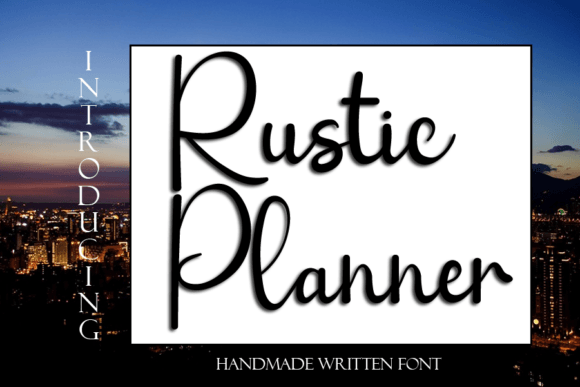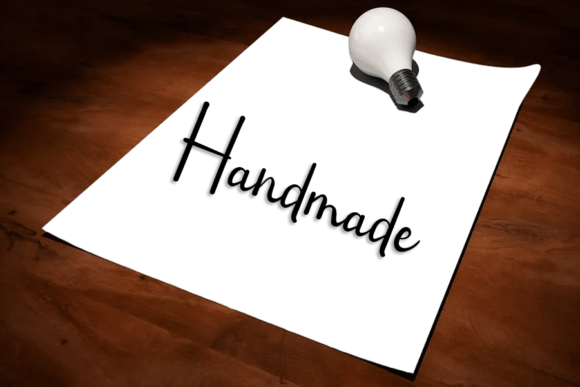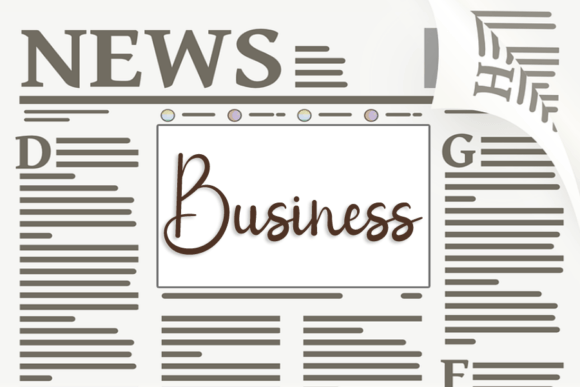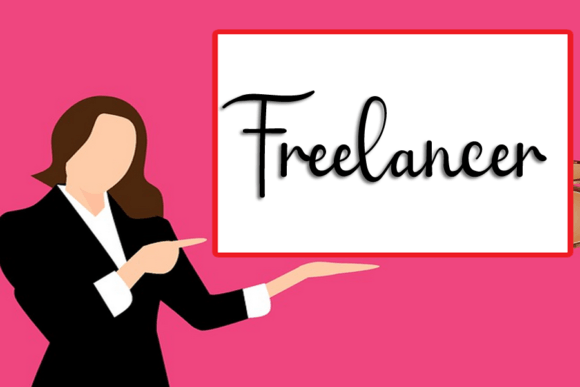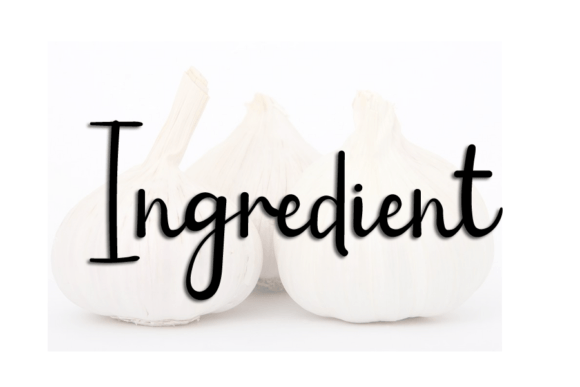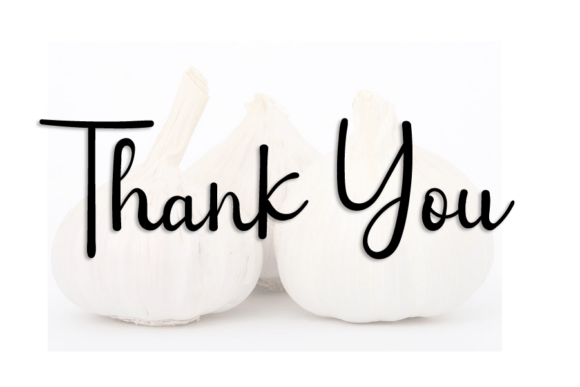
Rustic Planner Font
About Rustic Planner Font
“Rustic Planner” is a beautiful handwritten font designed to make your work stand out with its elegant and curvy lines. This font is an excellent choice for a wide range of creative projects, adding a romantic and handmade touch to your designs. Whether it’s product packaging, branding projects, magazine covers, social media graphics, or wedding-related materials, “Rustic Planner” promises to enhance your creations with its unique and captivating style.
The elegant and curvy lines of this font contribute to its overall aesthetic appeal. The careful design of each letter brings a sense of sophistication and warmth, making it suitable for projects that require a romantic and handwritten touch.
“Rustic Planner” proves versatile across various design applications. Its adaptability allows it to seamlessly integrate into different contexts, from packaging and branding to editorial design and social media posts.
For product packaging and branding projects, “Rustic Planner” brings a distinctive and personalized feel, setting your products or brand apart with its romantic and handwritten charm.
Magazine covers and social media graphics benefit from the font’s eye-catching qualities, adding a touch of elegance to visual compositions.
Wedding-related materials, such as invitations or stationery, can be elevated by the romantic and handmade nature of “Rustic Planner,” creating a memorable and personalized atmosphere.
In summary, “Rustic Planner” stands out as a gorgeous handwritten font that can enhance your work with its elegant and curvy lines. Its versatility makes it suitable for a variety of design projects where a romantic and handwritten touch is desired, ensuring that your creations leave a lasting impression.